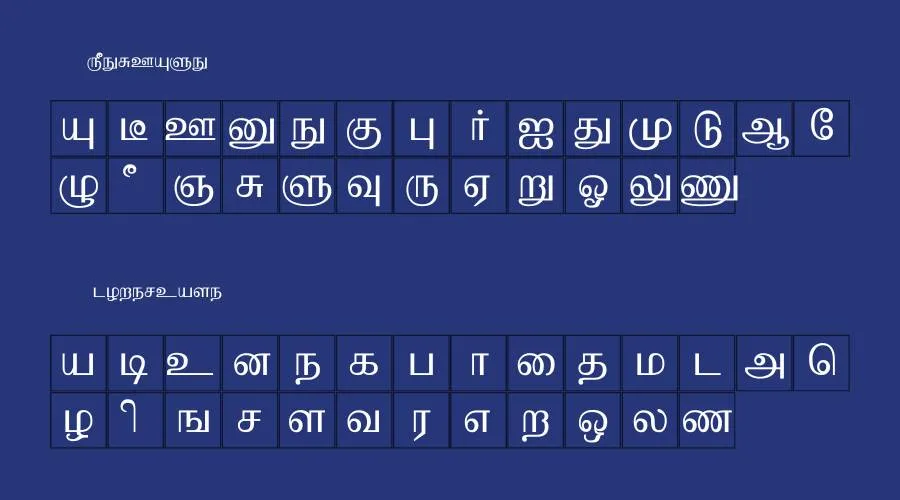
About Bamini Font
Bamini Font contains unique glyphs and characters the design may be an incredible choice for any task that needs a touch of class. Get it and include a stylish touch to the next task. It is a sans-serif style.
Also appropriate for artwork and banner design. There are smaller capital letters in it. Using this typeface in combination with many other typefaces can truly assist you to produce an original and eye-catching style.
Your simple designs will look bold and stylish with this style. It's ideal for giving your work uniqueness as well as making it differentiate itself from other typefaces. Due to its eye-catching design, this typeface is commonly used in a lot of stylish projects such as Tamil movies.